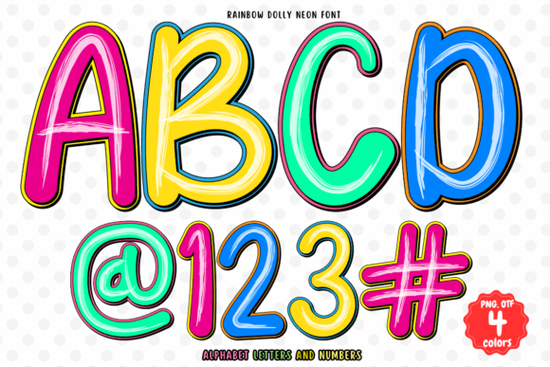
If you've been searching for a colorful typeface that practically glows off the screen, the Rainbow Dolly Neon font might be exactly what you need. It's a neon-inspired display font designed with playful, multicolored letterforms that work well for party invitations, holiday cards, school projects, and creative art. The font uses OpenType-SVG color font technology, which means the colors are baked right into the glyphs no extra styling required in the right software.
What Makes This Neon Font Different From Regular Colorful Fonts?
Most colorful fonts you see online rely on layering or manual color changes to achieve a multicolor effect. The Rainbow Dolly Neon font takes a different approach. Because it's an OpenType-SVG color font, each letter already contains its own color data. When you type, the vibrant neon tones appear automatically no need to apply gradients or overlays yourself.
This is a big deal if you want to save time on repetitive design tasks. You type your text, and it looks ready for a party poster right away. If you're used to working with standard outline fonts, the difference in visual impact is immediately noticeable.
What Can You Create With a Neon Color Font?
The versatility of this font goes beyond what you might expect from a display typeface. Here are some practical ways designers and crafters are using it:
- Party invitations Birthday bashes, glow parties, and themed events
- School projects Posters, presentations, and bulletin board headers
- Holiday graphics Seasonal social media posts, greeting cards, and flyers
- Print-on-demand products T-shirt designs, mugs, tote bags, and stickers
- Social media content YouTube thumbnails, Instagram stories, and TikTok overlays
- Digital planners and journals Colorful headers and accent text
If you run a small Etsy shop or sell on Redbubble, a bold neon font like this can help your designs stand out in crowded marketplaces. Pair it with simple backgrounds to let the colors do the heavy lifting.
How Does It Compare to Other Colorful Fonts?
Each color font has its own personality. The Rainbow Dolly Neon is firmly in the bold, energetic camp it's not trying to be subtle, and that's exactly why it works for festive, high-energy designs.
Is This Font Right for Your Project?
Before you decide, ask yourself these questions:
- Do I need a font that works in Photoshop, Illustrator, Silhouette, or Inkscape?
- Am I creating party-themed, holiday, or youth-oriented designs?
- Do I want colors built into the font without extra editing steps?
- Am I okay with a display font that's best suited for headlines and short text rather than body copy?
If you answered yes to most of these, the Rainbow Dolly Neon font is a solid choice for your creative toolkit. You can find full details and download options here.
Quick Checklist Before You Buy
- ✓ Confirm you're using Photoshop, Illustrator, Silhouette, or Inkscape
- ✓ Remember it's not compatible with Cricut
- ✓ Plan to use it for headlines, titles, and short text not long paragraphs
- ✓ Test the font with a sample word to see how the neon colors render in your software
- ✓ Pair it with a clean sans-serif font for any body text to keep everything readable